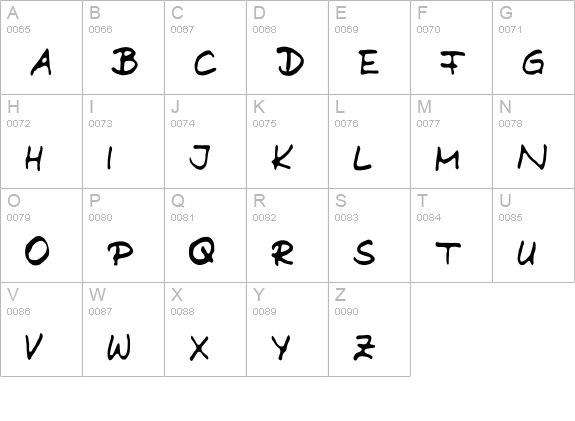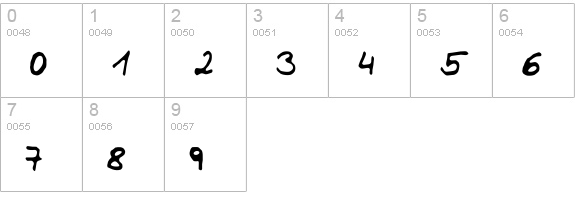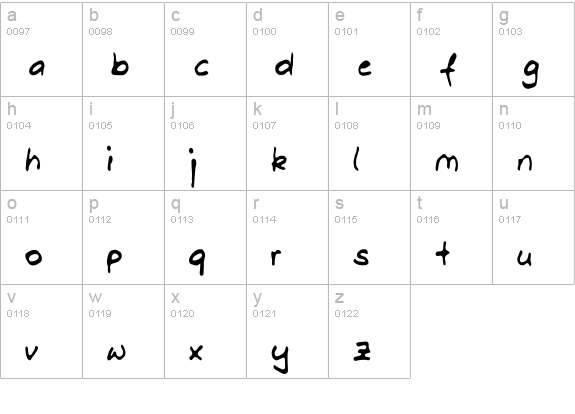
Dani font is a stylish and modern typeface that exudes elegance and sophistication. With its sleek lines and contemporary design, Dani font is perfect for a wide range of creative projects, from branding to editorial design. The versatility of Dani font makes it suitable for both headlines and body text, adding a touch of flair to any design. The best part about Dani font is that it is completely free! You can download this beautiful typeface at FontsMarket.com without any cost. Whether you are a graphic designer, a blogger, or a small business owner looking to elevate your brand presence, Dani font is the perfect choice. Add a touch of class to your projects with Dani font today!